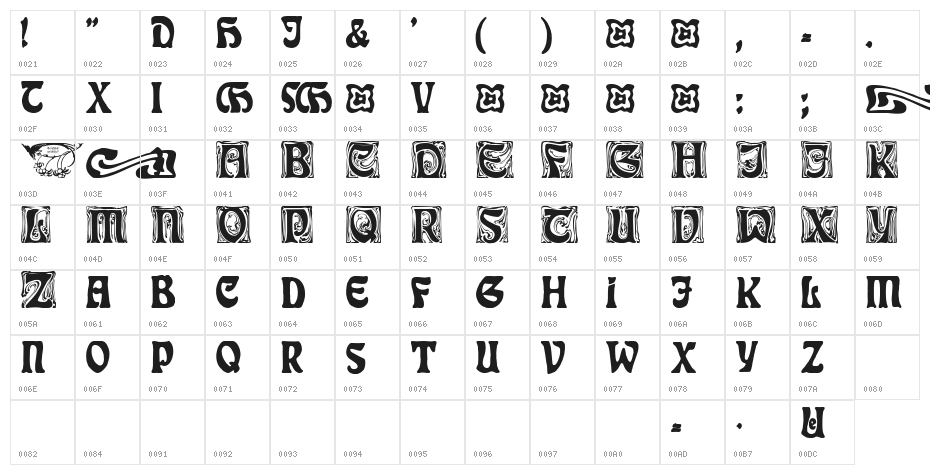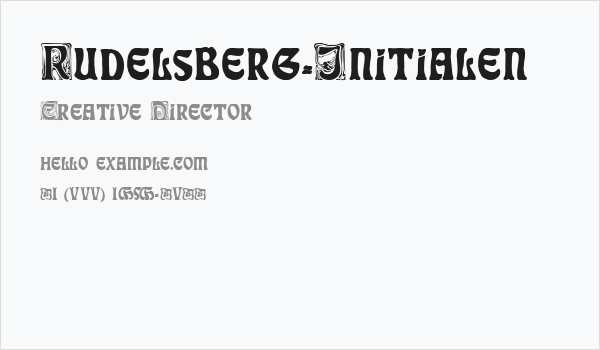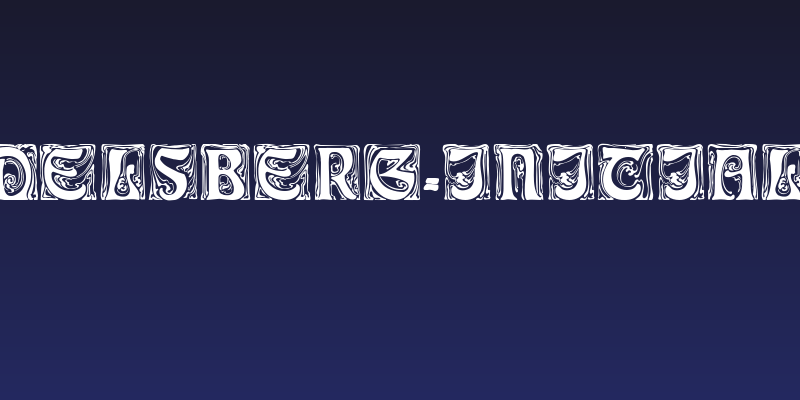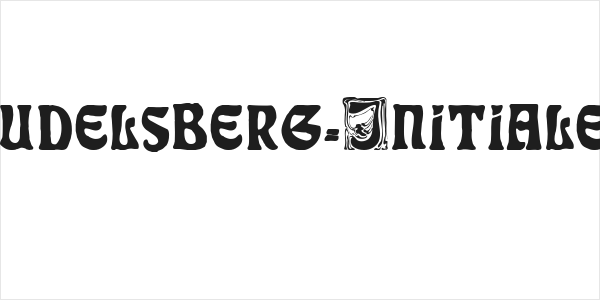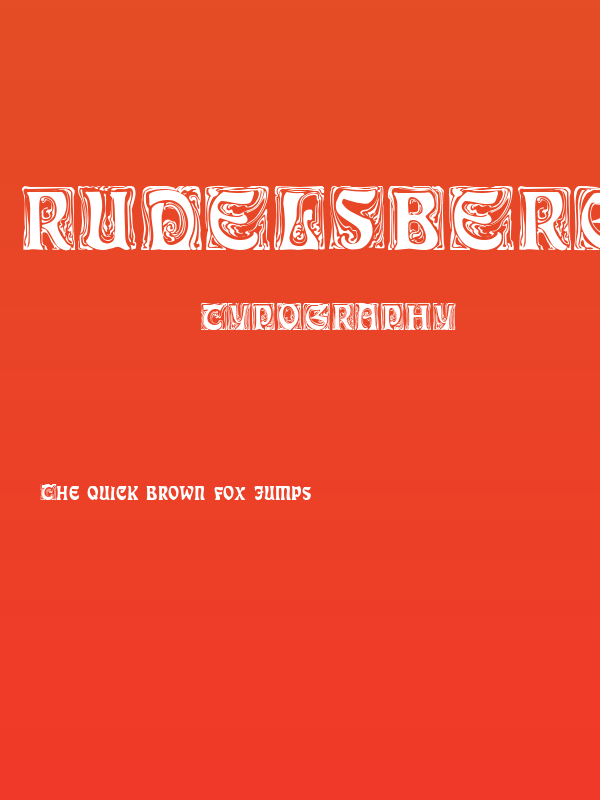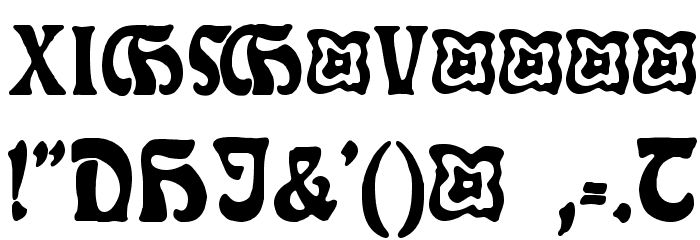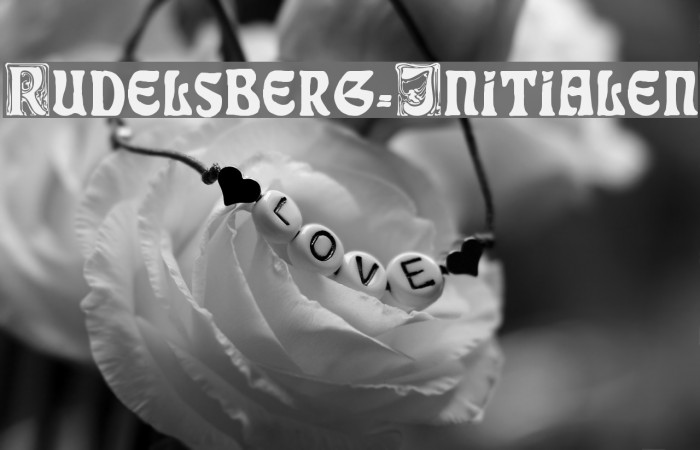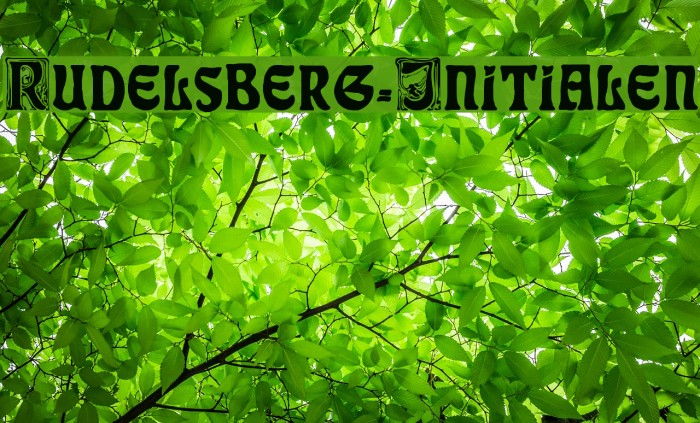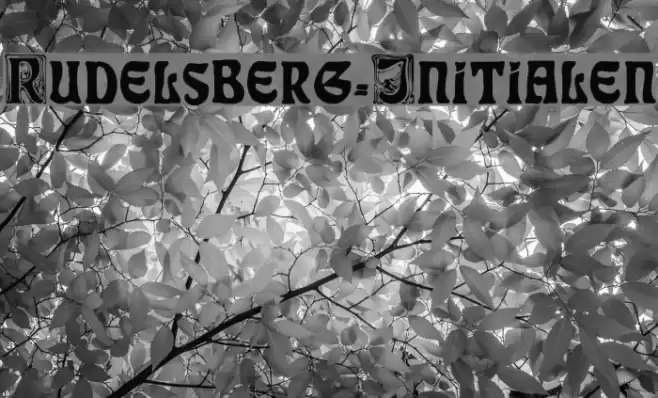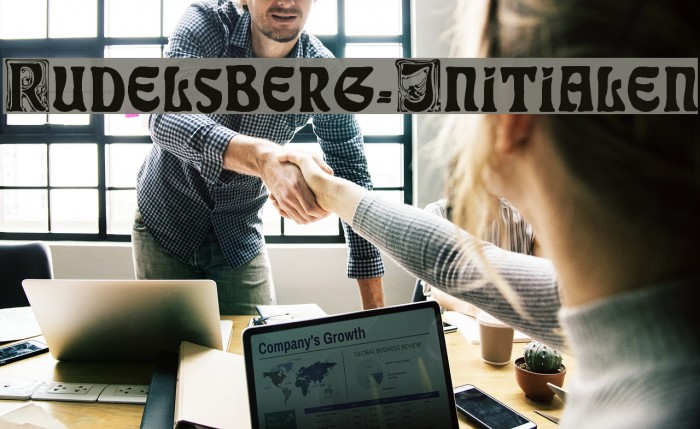
Rudelsberg-Initialen Font
Rudelsberg-Initialen Description
This font features a bold and decorative style with intricate patterns and flourishes that give it a unique and artistic appearance. The uppercase letters are highly stylized with swirling designs that create a sense of movement and elegance. The lowercase letters maintain a consistent style, offering a cohesive look throughout. The numbers and special characters are equally ornate, making this font ideal for projects that require a touch of sophistication and flair. Its distinct appearance makes it stand out, perfect for creative and artistic applications.
| Use Case | Headlines, Logos, Artistic projects |
| Proposed Projects | Ideal for artistic projects, invitations, posters, and branding that require a unique and decorative touch. |